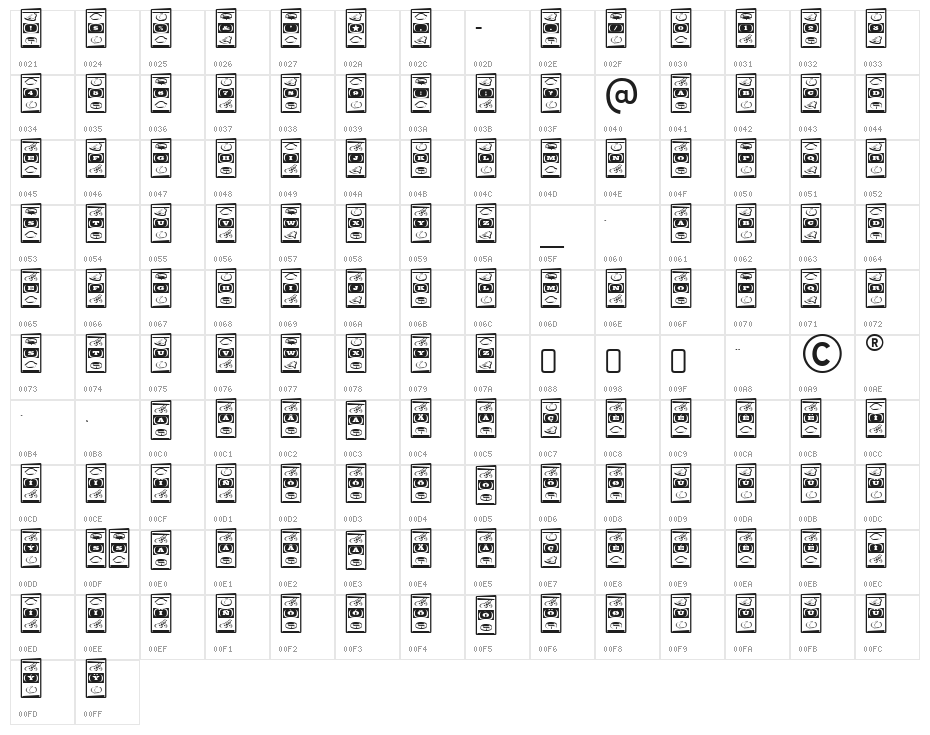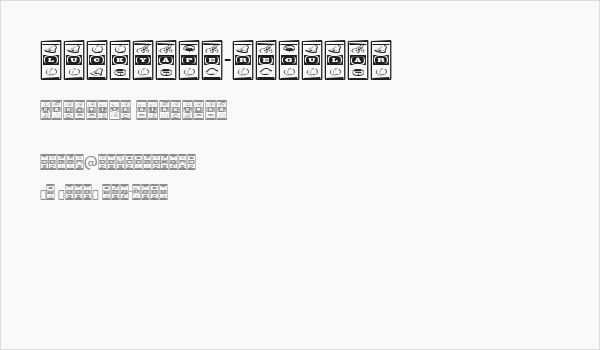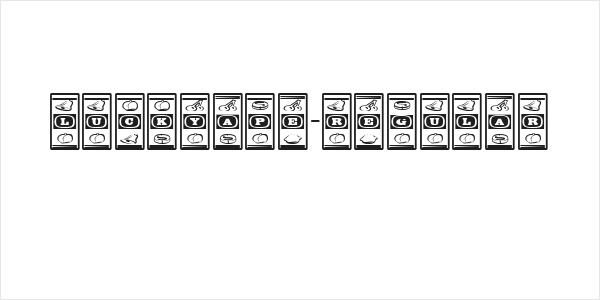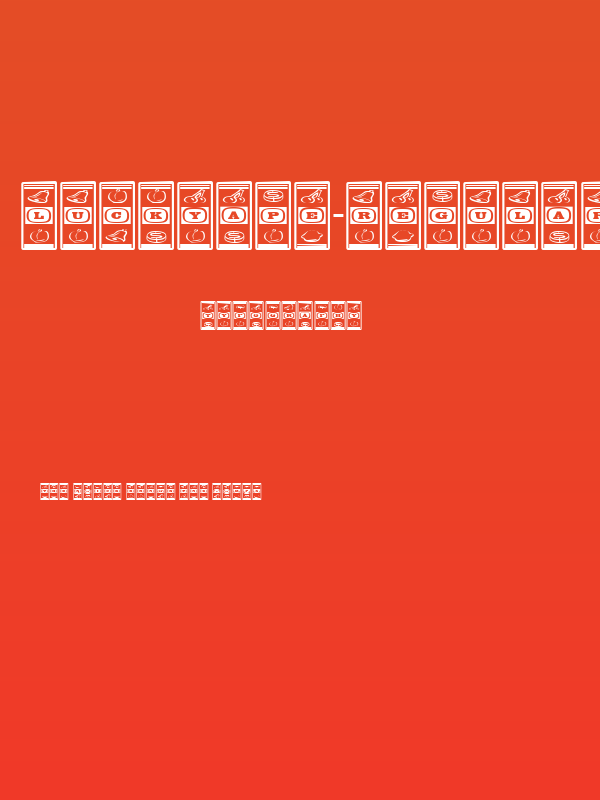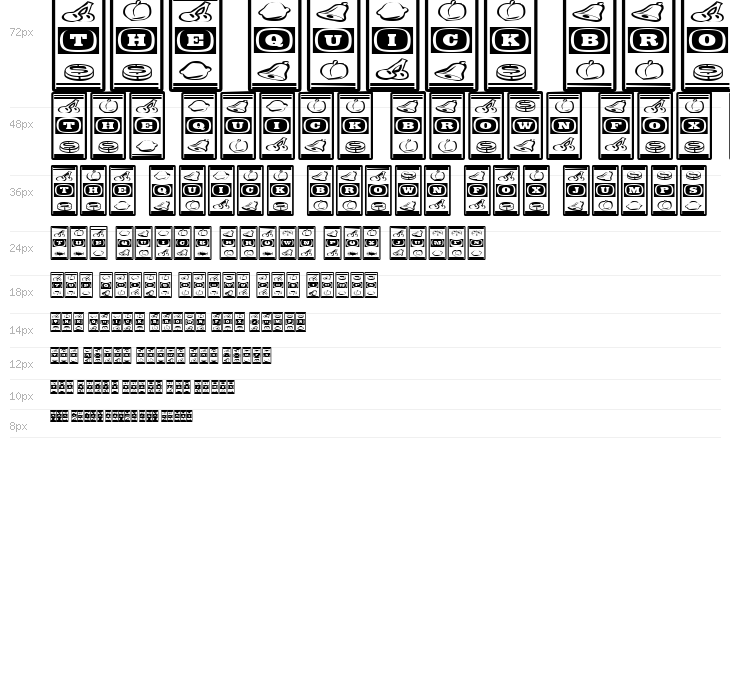
LuckyApe-Regular Font
LuckyApe-Regular Description
This font features a playful and bold design, incorporating elements reminiscent of classic slot machine symbols. Each character is encased in a rectangular frame, adding a unique and decorative touch. The letters and numbers are bold and clear, making them easily readable while maintaining a fun and engaging aesthetic. The use of iconic symbols like fruits and bells alongside the characters enhances its playful nature, making it ideal for creative and themed projects. The overall style is both nostalgic and modern, capturing the essence of vintage gaming with a contemporary twist.
| Overall Style | Vintage, Decorative |
| Proposed Projects | Ideal for casino-themed designs, playful branding, children's books, and creative posters. |